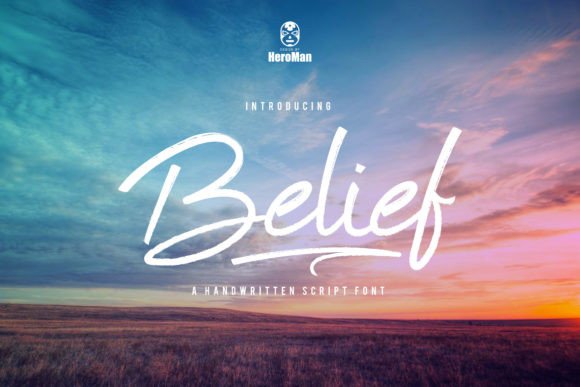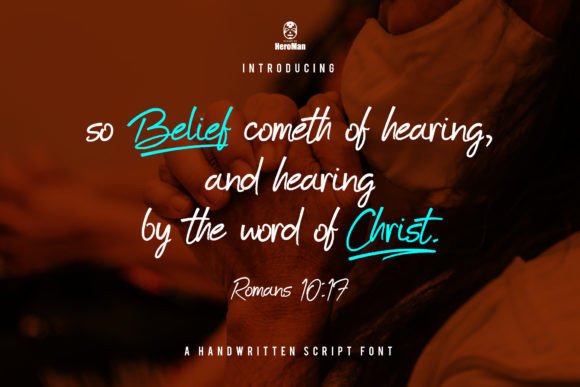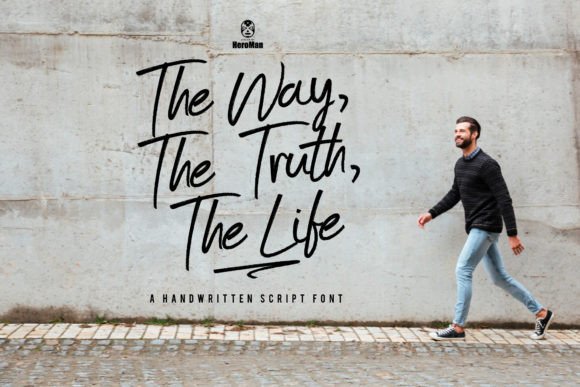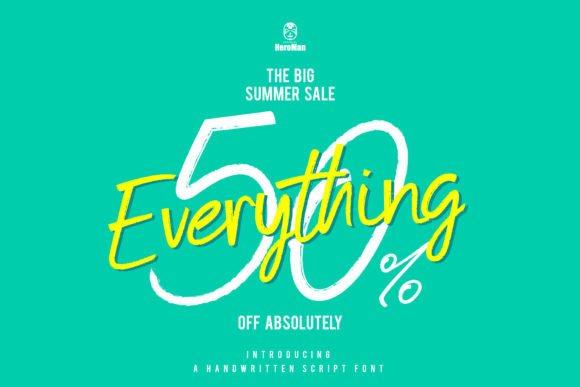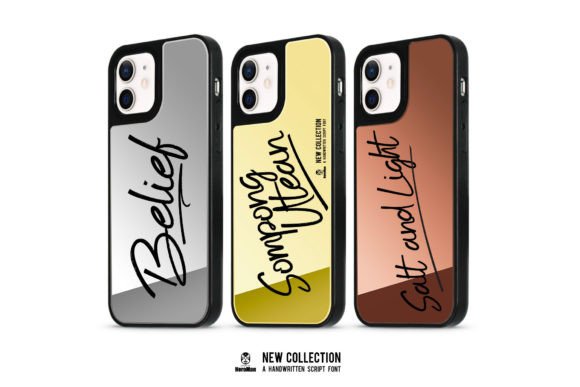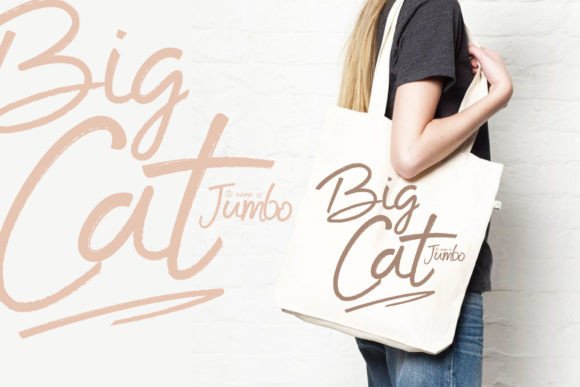
Introduction to Belief Font
Belief is a fun and whimsical handwritten font.
Its authentic look will add a personal and realistic feel to your designs Try it on magazines, books, branding, advertising, social media posts, and more.
Key Features of Belief Font
Why Choose Belief Font?
Belief Font offers exceptional quality and versatility, making it a valuable addition to your design toolkit. Whether you’re creating for personal projects or commercial use, Belief Font delivers professional results.